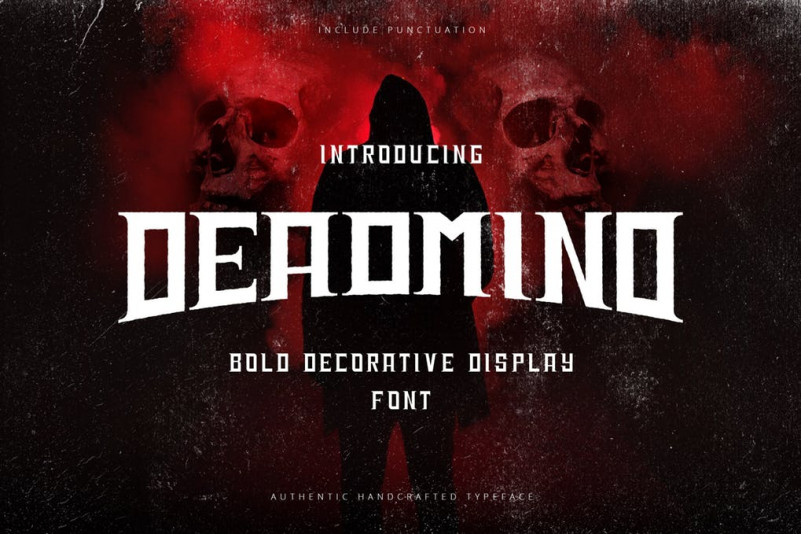
Deadmind Font
Introducing Deadmind font. Are you looking for a bold display sans font that have a strong bold visuak? We can help! Try to download our Deadmind font. The font is suitable to use for many occasion such as invitation, banner, movie title, brand, event, and many more 🙂